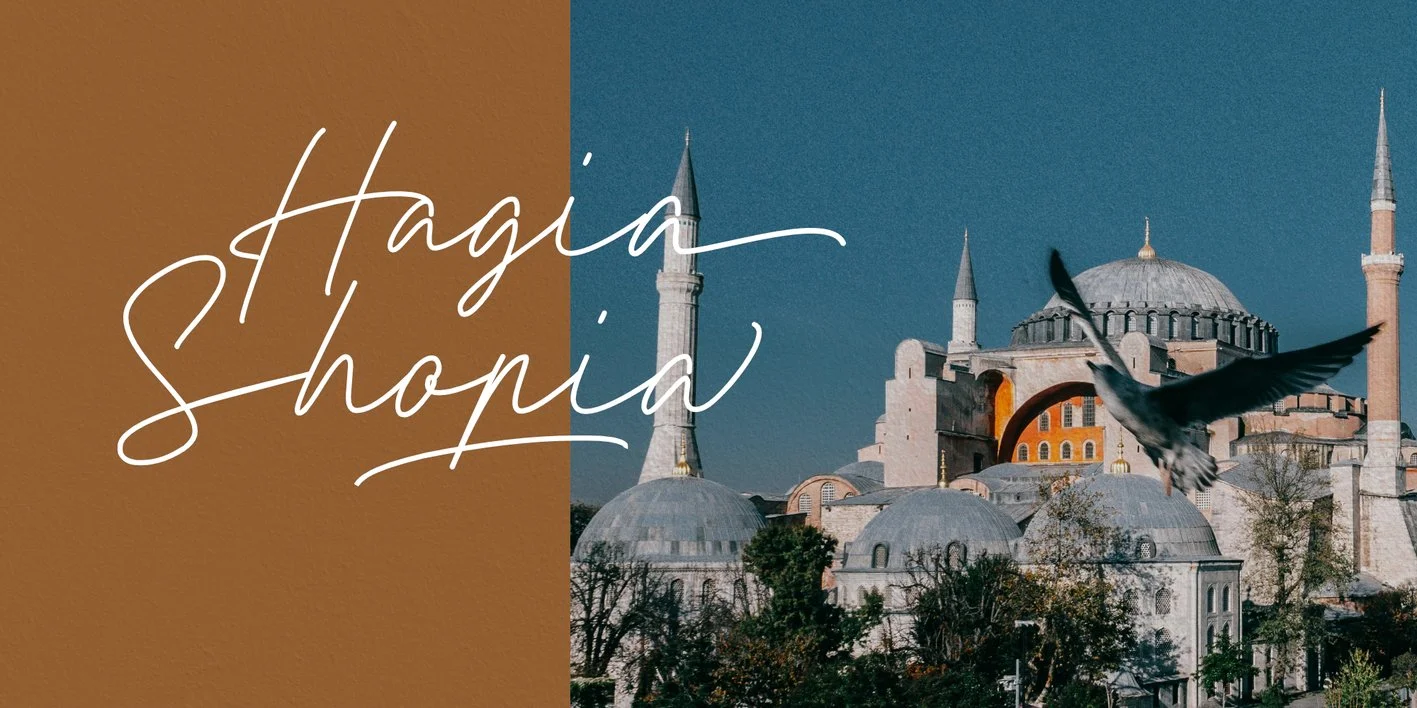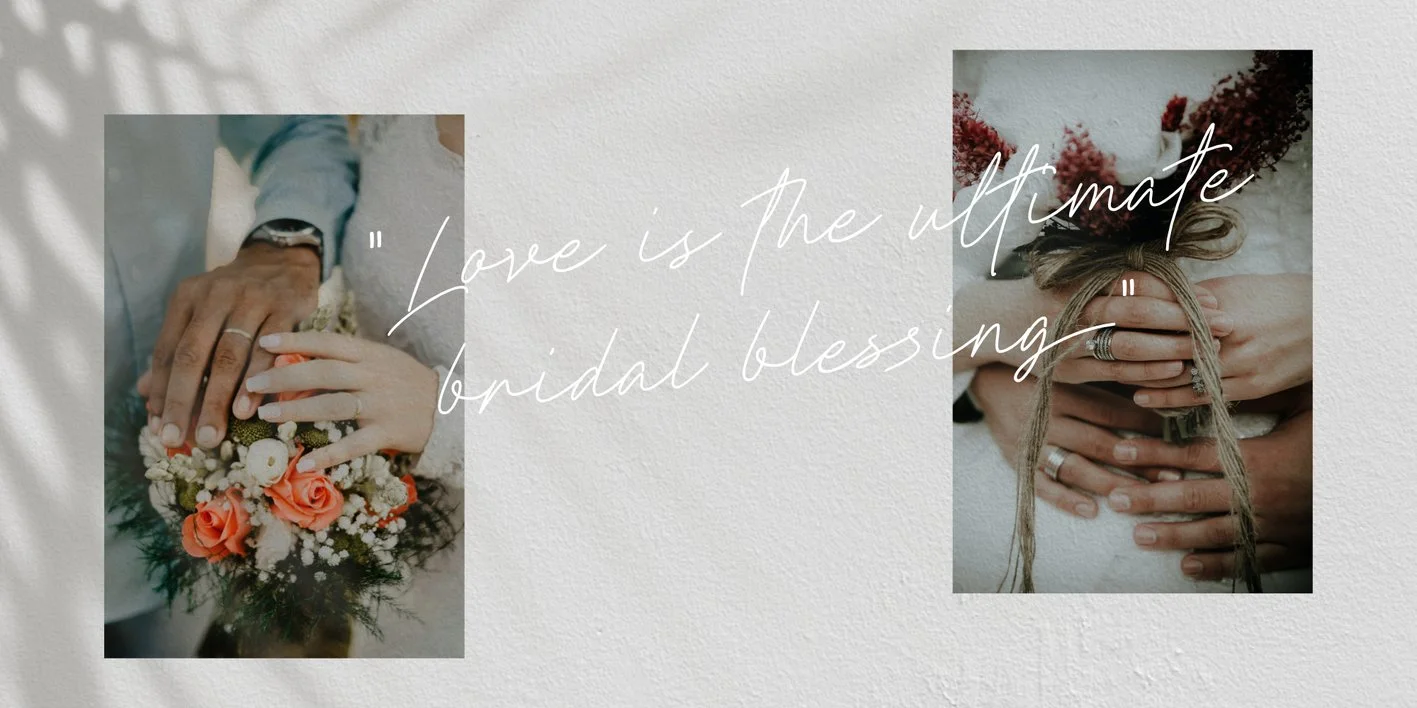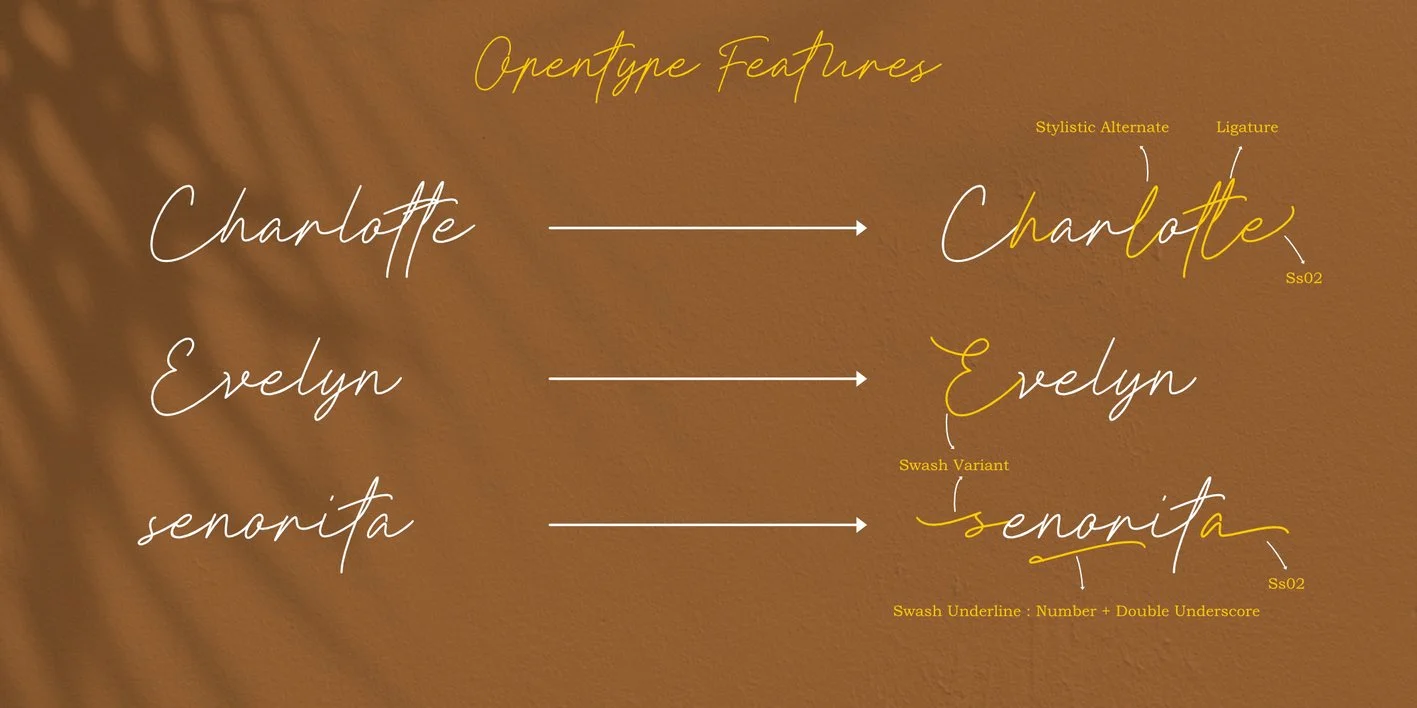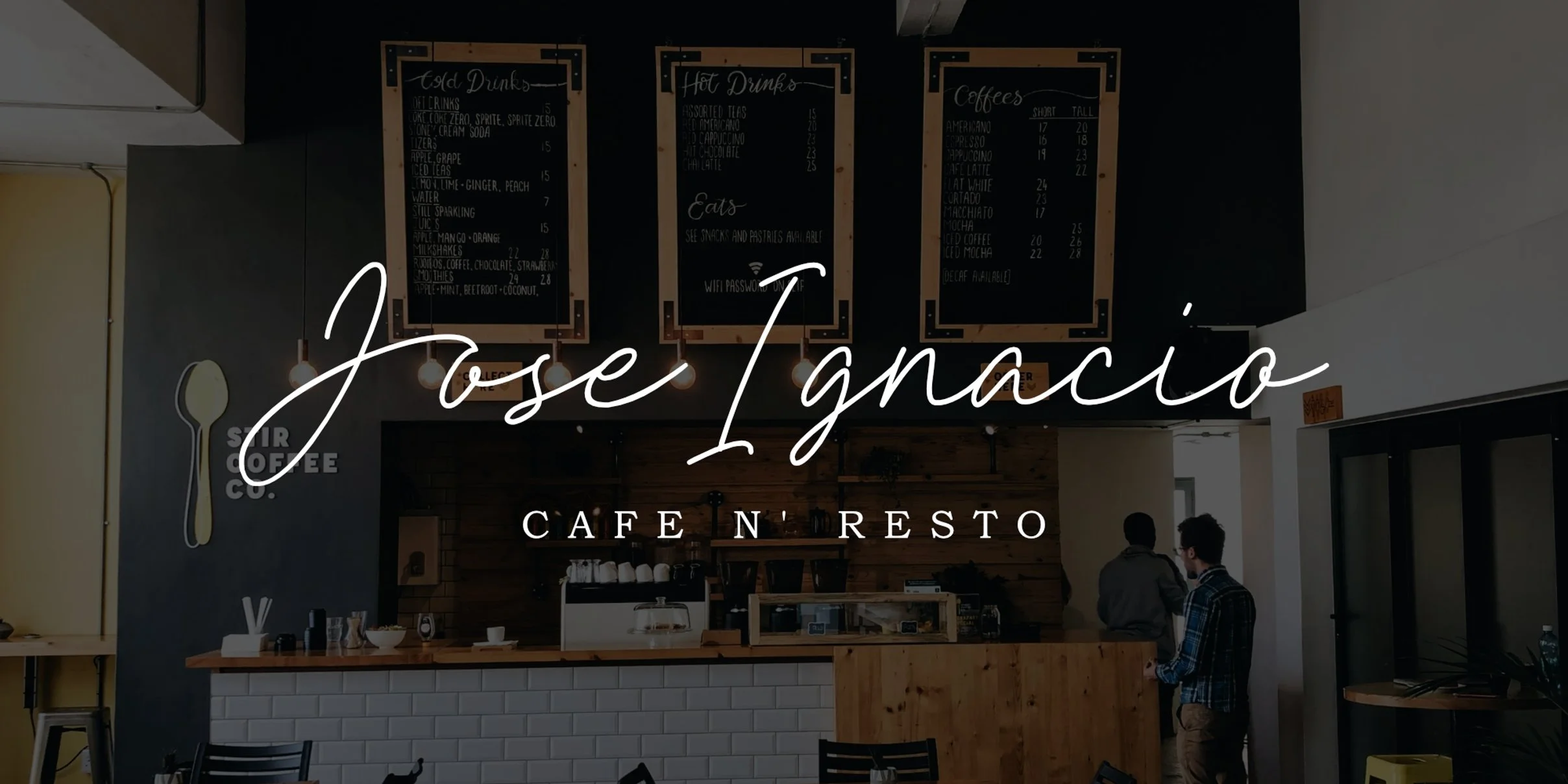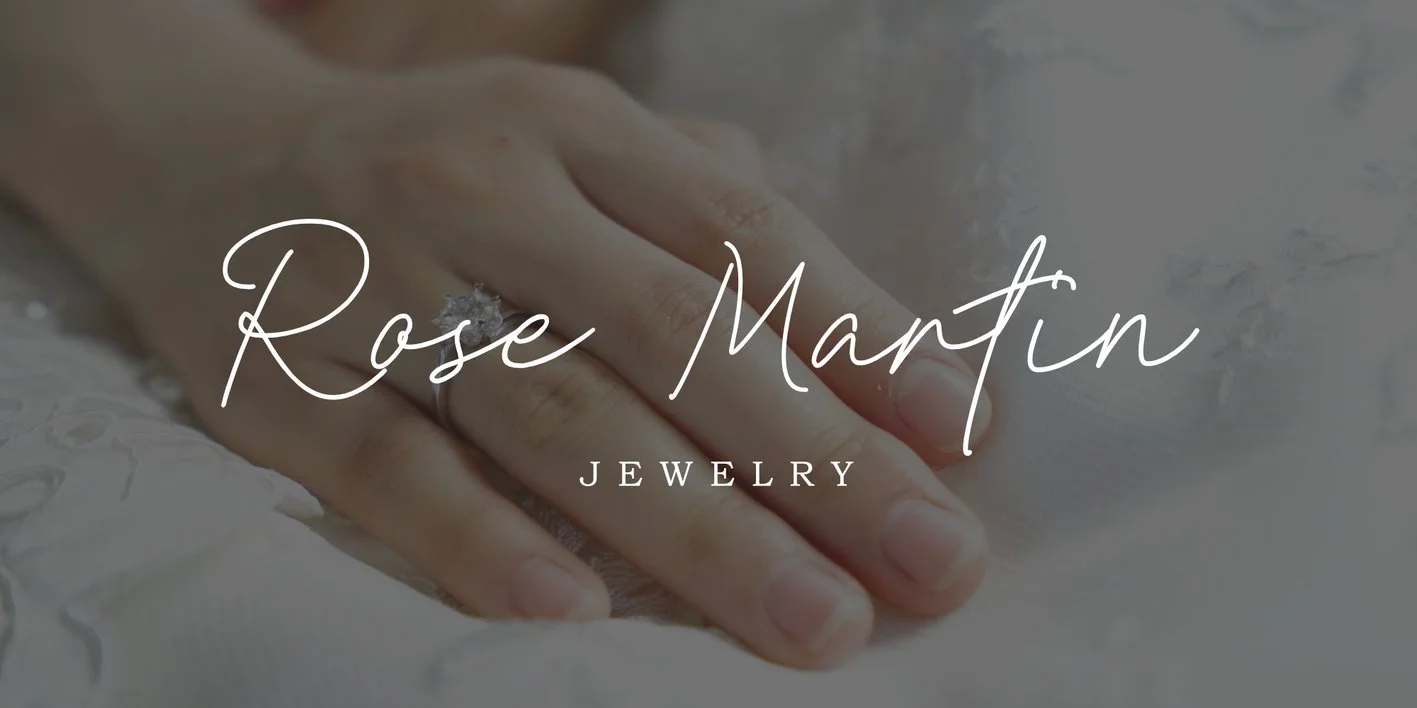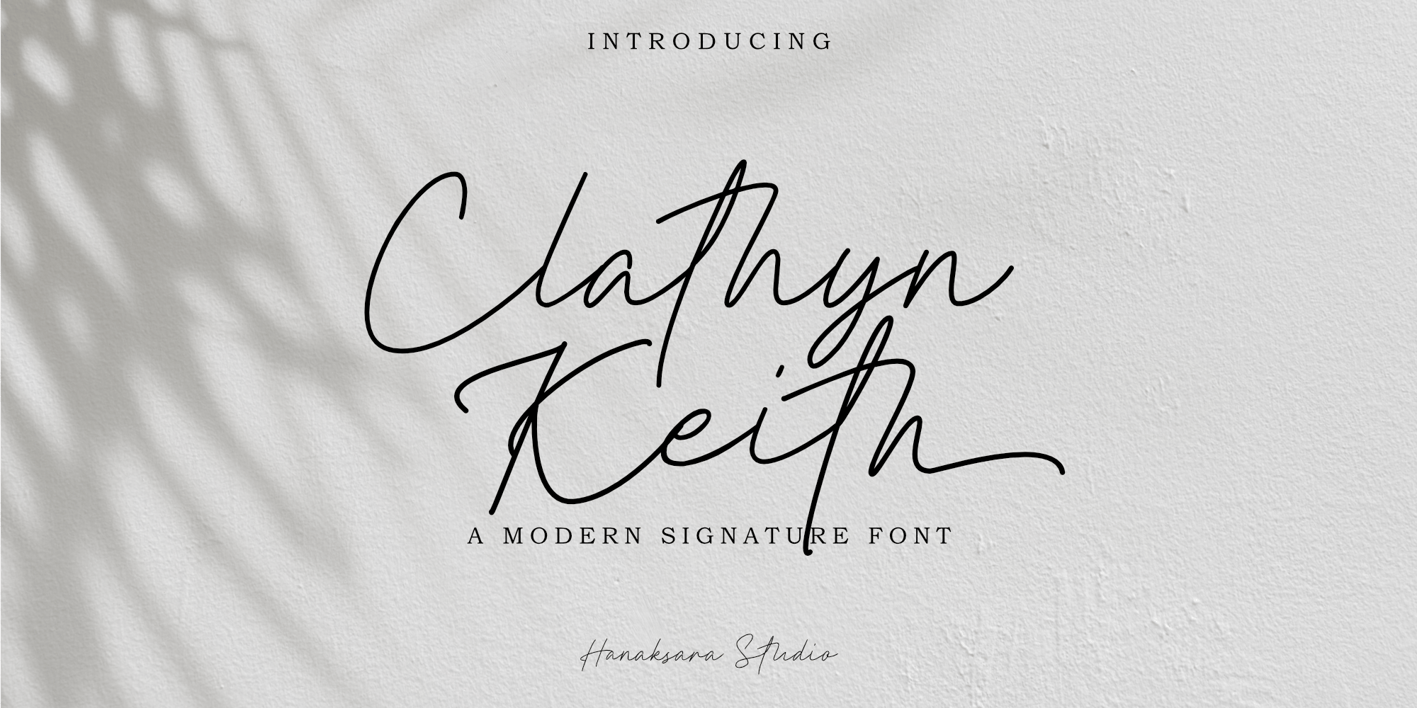
Clathyn Keith Signature Font
The Clathyn Keith Signature Font excels in personalized design applications including individual branding, custom business logos, personal correspondence, bespoke wedding invitations, unique business cards, artistic portfolios, personalized greeting cards, custom social media graphics, individual certificates, and distinctive marketing materials. Its dual-name script style makes it perfect for projects requiring personal elegance that communicates individuality and establishes intimate brand positioning with audiences seeking authentic personal connections and customized design experiences.
What makes the Clathyn Keith Signature Font truly exciting is its exceptional ability to convey personal authenticity and individual character through distinctively crafted letterforms. The font features flowing, personalized strokes with unique flourishes and individualistic proportions that create a distinctly personal appearance. Each character displays masterful attention to individual detail with intimate curves, personal connections, and customized spacing that give text a genuine, hand-lettered quality. The font's personal character and authentic rhythm create an atmosphere of individuality while maintaining elegant sophistication and intimate appeal.
The Clathyn Keith Signature Font family typically includes regular weight with extensive character coverage, featuring uppercase and lowercase letters, numerals, punctuation marks, and international characters. The typeface often incorporates stylistic alternates, contextual ligatures, and personalized swashes that enhance its signature authenticity. These additional elements provide designers with creative flexibility to customize text appearance and achieve more natural-looking personal handwriting that reflects the font's individual and distinctive character.
This distinctive signature font captivates personal audiences through its remarkable balance of intimacy and professionalism. Unlike generic fonts that lack personal connection, Clathyn Keith Signature Font embraces the power of individual expression to create meaningful relationships with audiences. The font's personal character makes it essential for individual entrepreneurs, personal brands, and custom services where establishing genuine personal connections and expressing unique personality is fundamental to success in competitive personal service markets.
The Clathyn Keith Signature Font presents designers with an outstanding opportunity to incorporate personal authenticity into their individual projects. From personal coaching brands to custom artistic services, this font delivers the intimate signature aesthetic that resonates with audiences seeking genuine personal connections and individualized experiences. Its personal appeal ensures your designs communicate authentic individuality while the signature styling adds distinctive personality that reflects personal excellence and individual character in any application requiring personalized typography solutions.